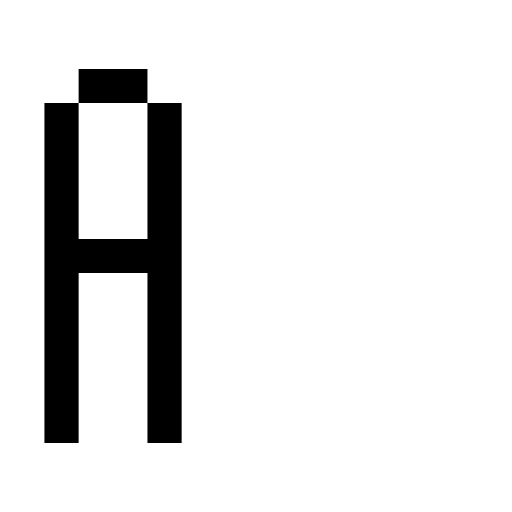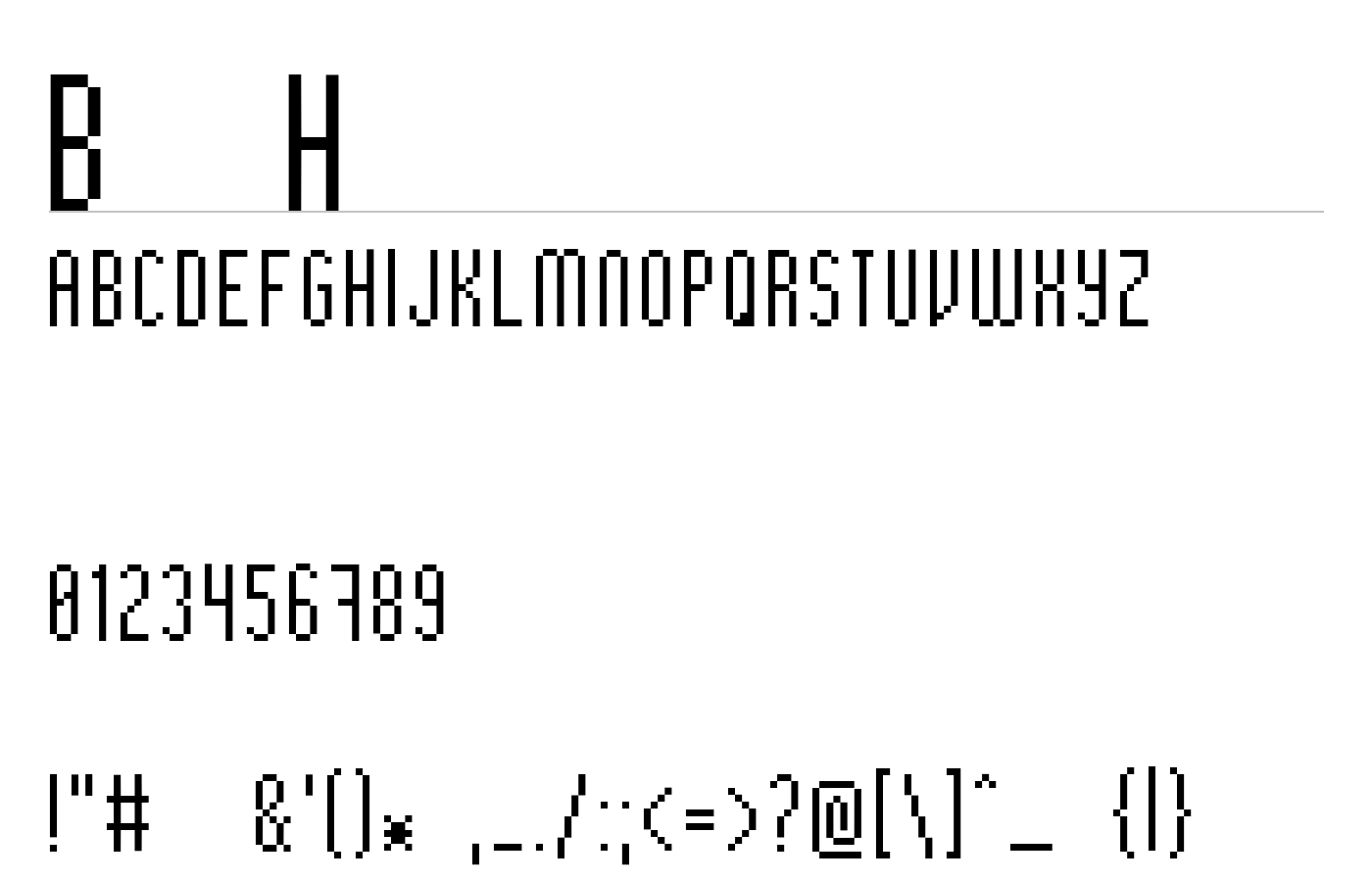
BitHigh is a pixelated, sans serif font with a narrow, condensed style that evokes a retro digital or 8-bit video game aesthetic. Its consistent stroke thickness and blocky, geometric letterforms make it ideal for designs seeking a modern tech or nostalgic gaming vibe. This font works best for headlines, logos, and digital-themed projects that want to capture a minimalist yet striking pixel-art feel.
BitHigh Font
About BitHigh Font